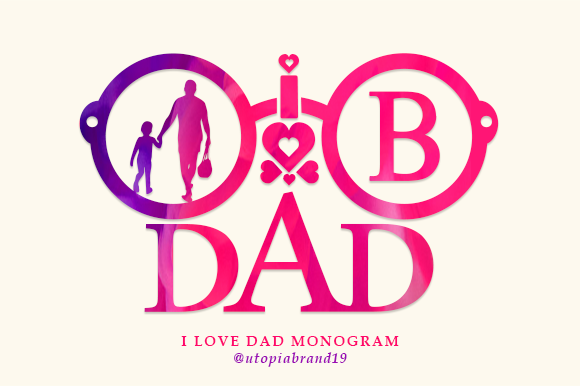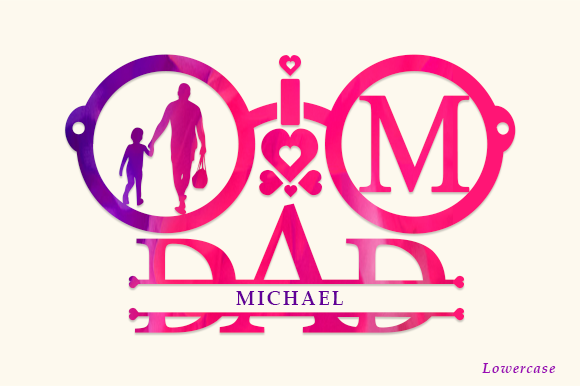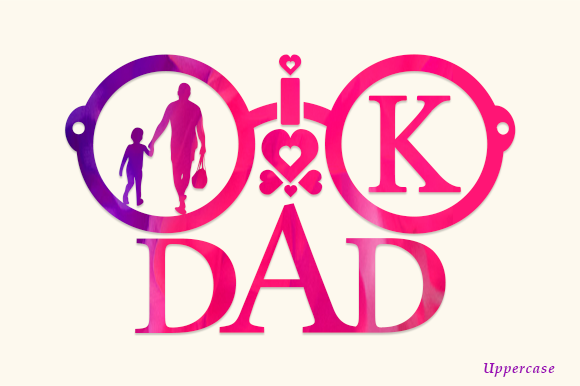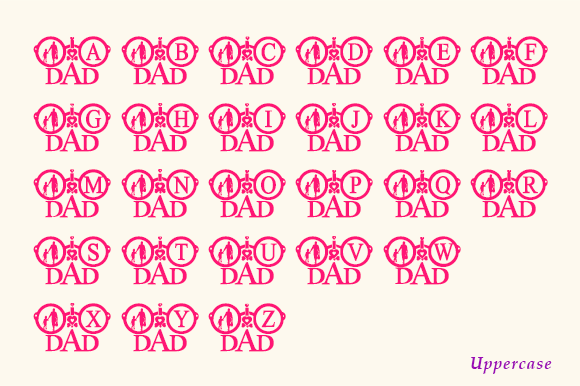
I Love Dad Monogram Font
About the I Love Dad Monogram Font
Discover the charm of I Love Dad Monogram Font. This font is a perfect blend of modern aesthetics and classic appeal. I Love Dad Monogram is a versatile and authentic decorative font. Add this lovely looking font to each of your letters, party invitations or favorite design ideas, and you will be astounded by the outcome.
Its playful, slightly retro style makes it ideal for headlines, short text blocks on invitations or greeting cards, and logos requiring a touch of vintage charm. It excels in branding for businesses with a friendly, approachable image—think artisanal food brands, children’s products, or small family businesses. Avoid using it for body text or UI elements; its decorative nature hinders readability in extended use.
Pairing it with a clean sans-serif like Open Sans for body copy creates a pleasing contrast, balancing the monogram’s playful energy with a professional feel. Alternatively, a classic serif like Garamond adds a touch of sophistication, ideal for projects aiming for a retro-chic aesthetic. For a more modern feel, consider pairing it with a geometric sans-serif like Montserrat.
The overall personality is cheerful and nostalgic, evoking feelings of warmth and familiarity. Its decorative details suggest a handcrafted quality, perfect for projects aiming for an authentic and personalized touch.
I Love Dad Monogram Font Usage Examples
I Love Dad Monogram Font Example